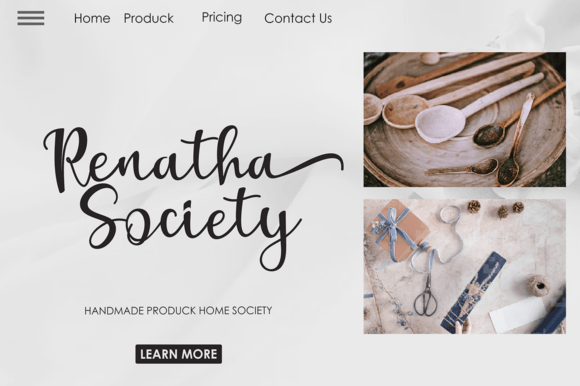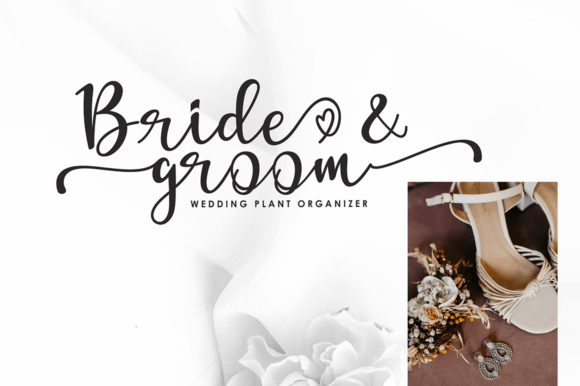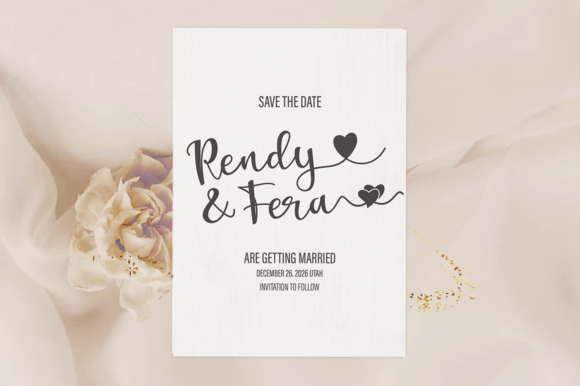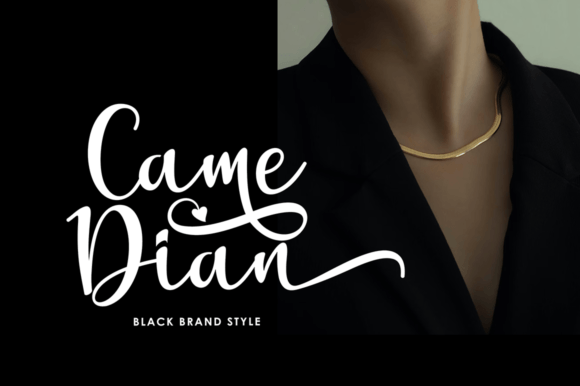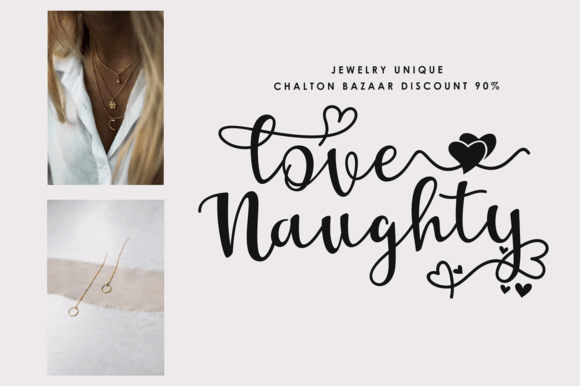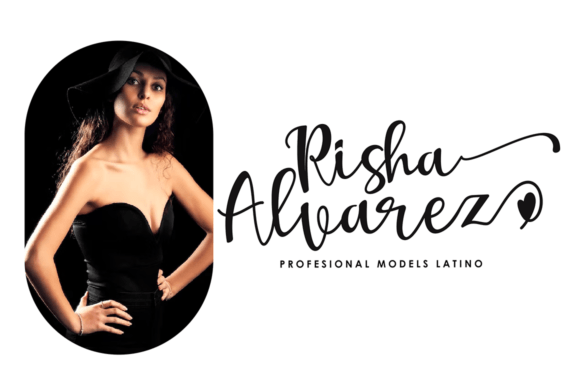
Discovering the Perfect Font for Your Next Creative Project
Have you ever been stuck on a design project, struggling to find the perfect font to bring your vision to life? It’s a feeling we’ve all experienced at some point or another. But what if you could fall in love with a font that not only captures your imagination but also elevates your designs to new heights? Enter the Baby Love Font, a stunning handwritten font that’s sure to become a true favorite among designers.
This exquisite font seamlessly blends classy calligraphic influences with a fresh, contemporary feel, making it the perfect addition to any project. With its PUA encoding, you’ll have access to all the glyphs and ligatures you need to create stunning designs. Whether you’re a seasoned pro or just starting out, the Baby Love Font is a valuable asset to have in your design toolkit.
Baby Love Font Key Features
- Font Style: A cute, playful, and cursive font, ideal for baby-related designs, nursery decor, and children’s products.
- Unique Characteristics: Features a mix of rounded and pointed letters, with a whimsical feel that adds a touch of innocence and charm to any design.
- Character Set: Includes a wide range of characters, including uppercase and lowercase letters, numbers, punctuation marks, and special characters, making it a versatile font for various applications.
Designer Review: Baby Love Font
Overall, I think the Baby Love Font has its charm. ✨ The playful, whimsical feel to the characters makes it perfect for projects that require a touch of innocence and cuteness. The font is well-suited for children’s books, nursery decor, and other projects that cater to young audiences.
Here are some specific aspects that work well:
- ✨ Unique and memorable characters: Each letter has a distinct personality, making it easy to recognize and remember.
- ✨ High-quality vector graphics: The font is crisp and clean, making it suitable for large-scale prints or digital displays.
- ✨ Wide range of languages supported: The font is designed to support multiple languages, making it a versatile choice for international projects.
- ⚠️ Limited font weight options: The font is available in only two weights, which may limit its usability in certain projects.
- ⚠️ Not ideal for formal or professional projects: The font’s playful nature may not be suitable for projects that require a more formal tone.
In conclusion, the Baby Love Font is a great choice for projects that require a lighthearted and whimsical feel. While it has its limitations, the font’s unique charm and high-quality design make it a worthwhile addition to any designer’s toolkit.
Tips for Getting the Most Out of Baby Love Font
For a more effective use of Baby Love Font, consider the following tips:
- Pair the font with soft, pastel colors to create a whimsical look.
- Use the font for titles, headings, or short text snippets to create visual interest.
- Experiment with different font sizes and styles to create a visually appealing design.
Baby Love Font is commonly used for:
- Baby-related designs,
Alternatives to Baby Love Font
Great Vibes Font is a modern, handwritten font perfect for creating a relaxed and casual atmosphere. It’s ideal for use in social media graphics, advertising, and packaging design. Great Vibes Font has a more laid-back and playful feel compared to Baby Love Font, which is more elegant and sophisticated.
Q: What is the recommended font size for using Baby Love Font in designs?
The recommended font size for using Baby Love Font in designs is between 12-24 points, depending on the context and intended use. This will help maintain readability and visual appeal. You can adjust the font size according to your design requirements.